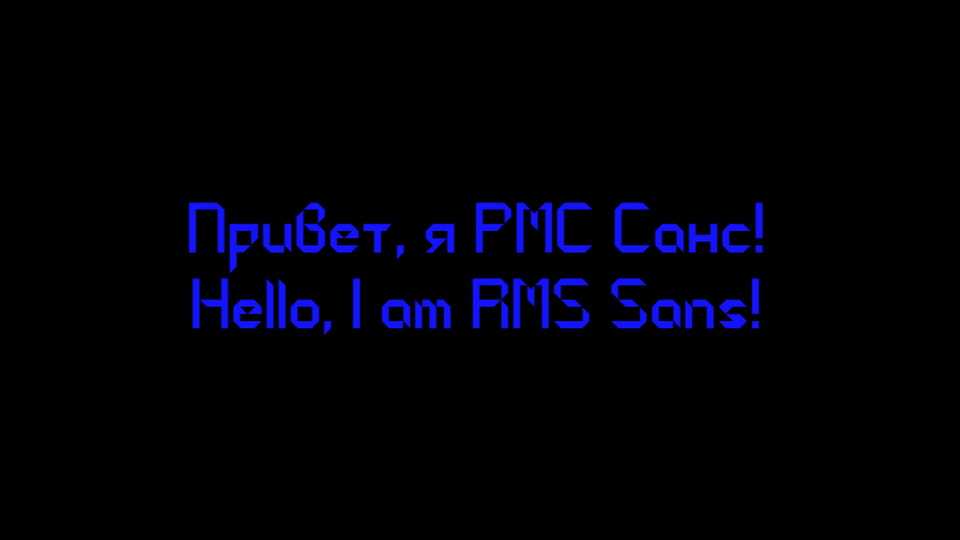
Download RMS Sans font, an experimental grotesque typeface inspired by old pixelated fonts, gothic and soviet typography used in engeneering.
Designer: Alexey Razuvaev